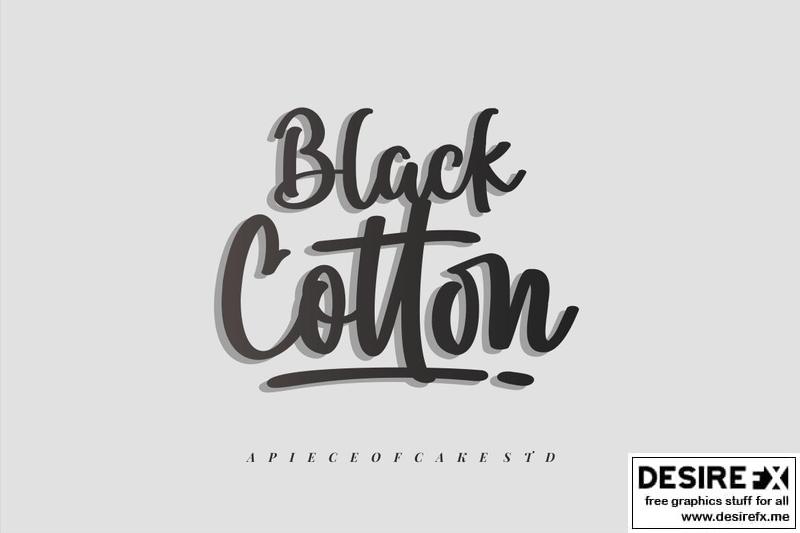
Black Cotton – A Script Font 6CBN864
Introducing, Black Cotton is a stylish script font suitable for your design project needs, such as; wedding themes, valentine’s themes, social media posts, quotes, overlays on images, tagline logos, posters, print needs, website banners, and more.
Features
- A set of uppercase and lowercase glyphs
- Number, symbol, and punctuation
- Multilingual Support
- Some Swashes and Ligatures
Azetype Studio x A Piece of Cake Std